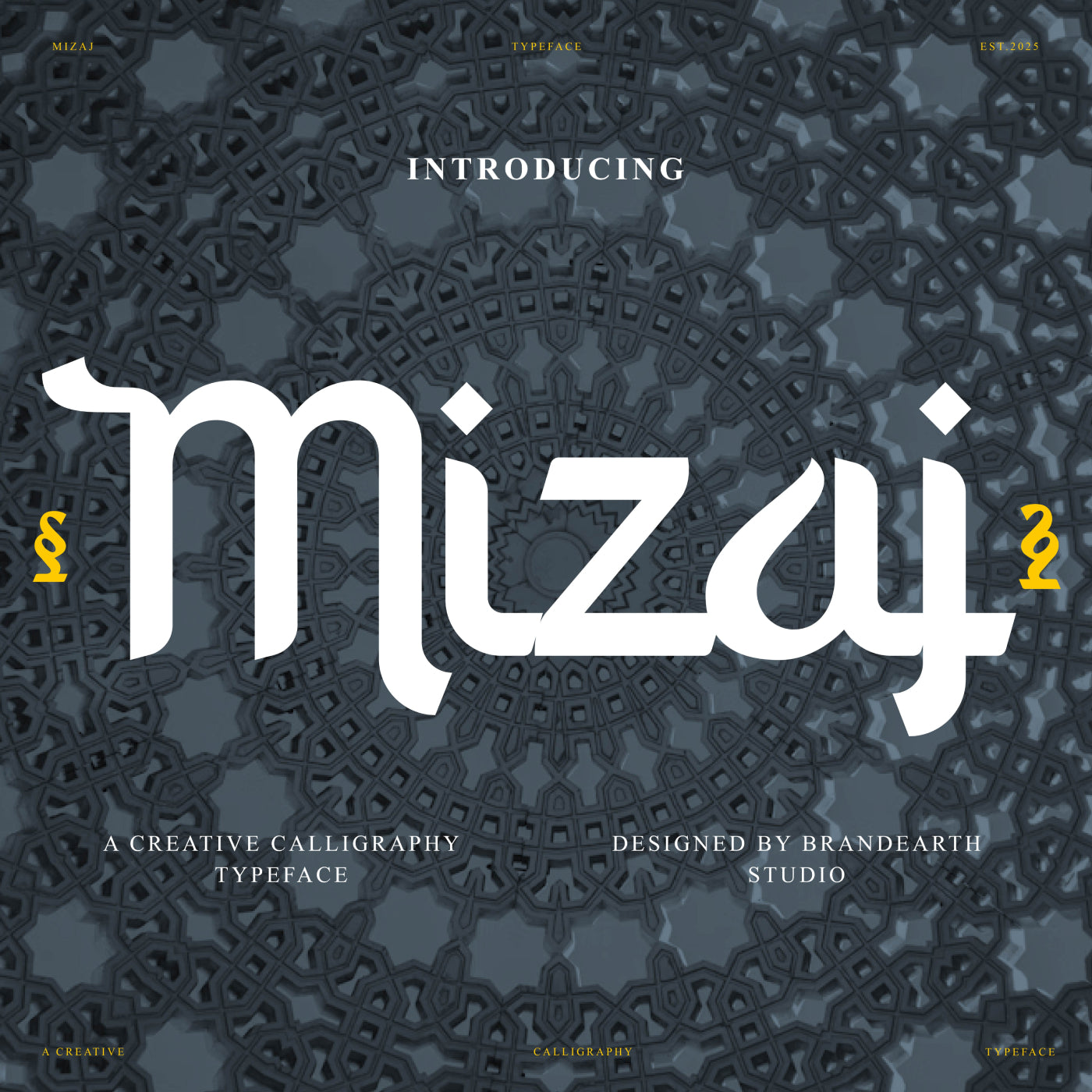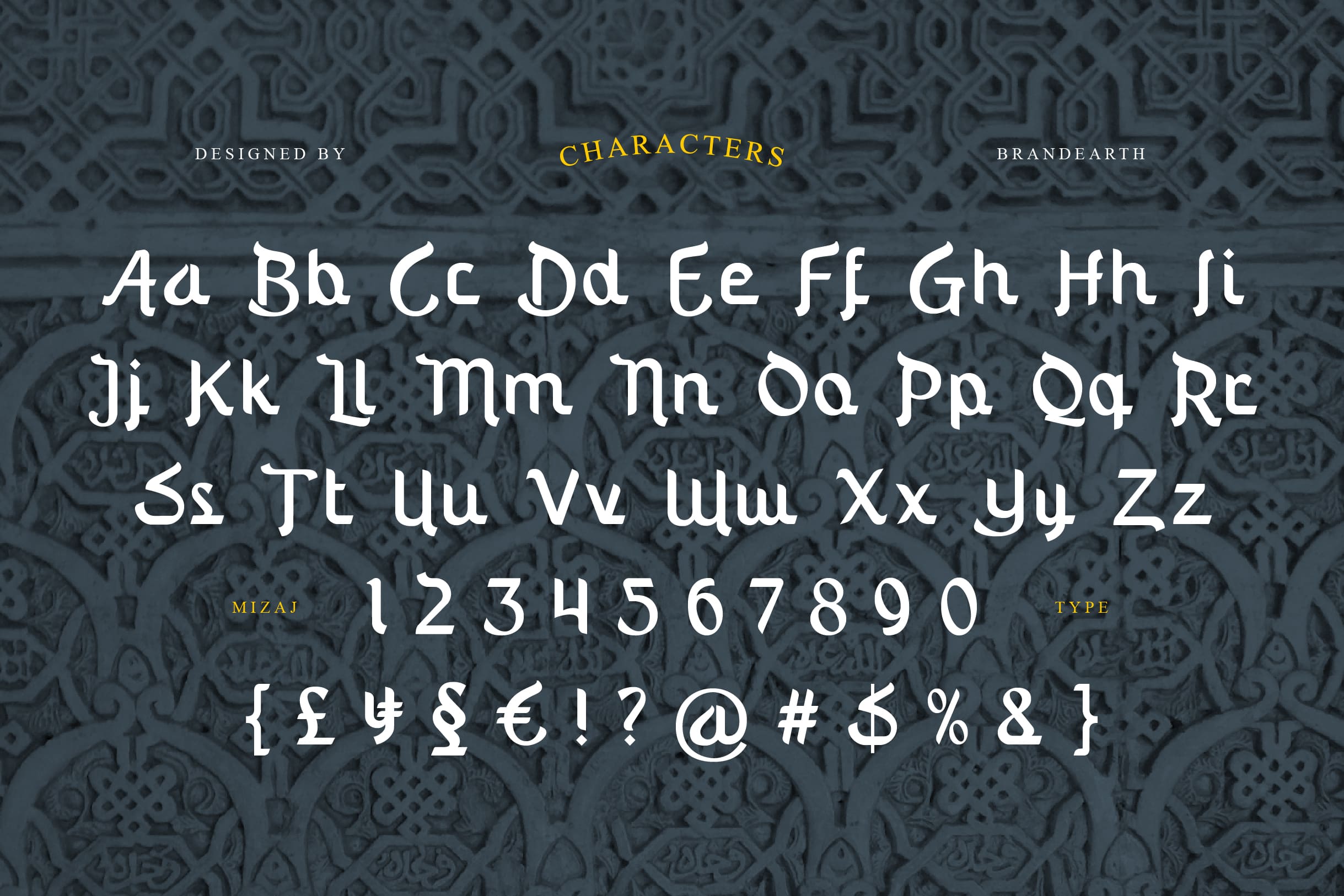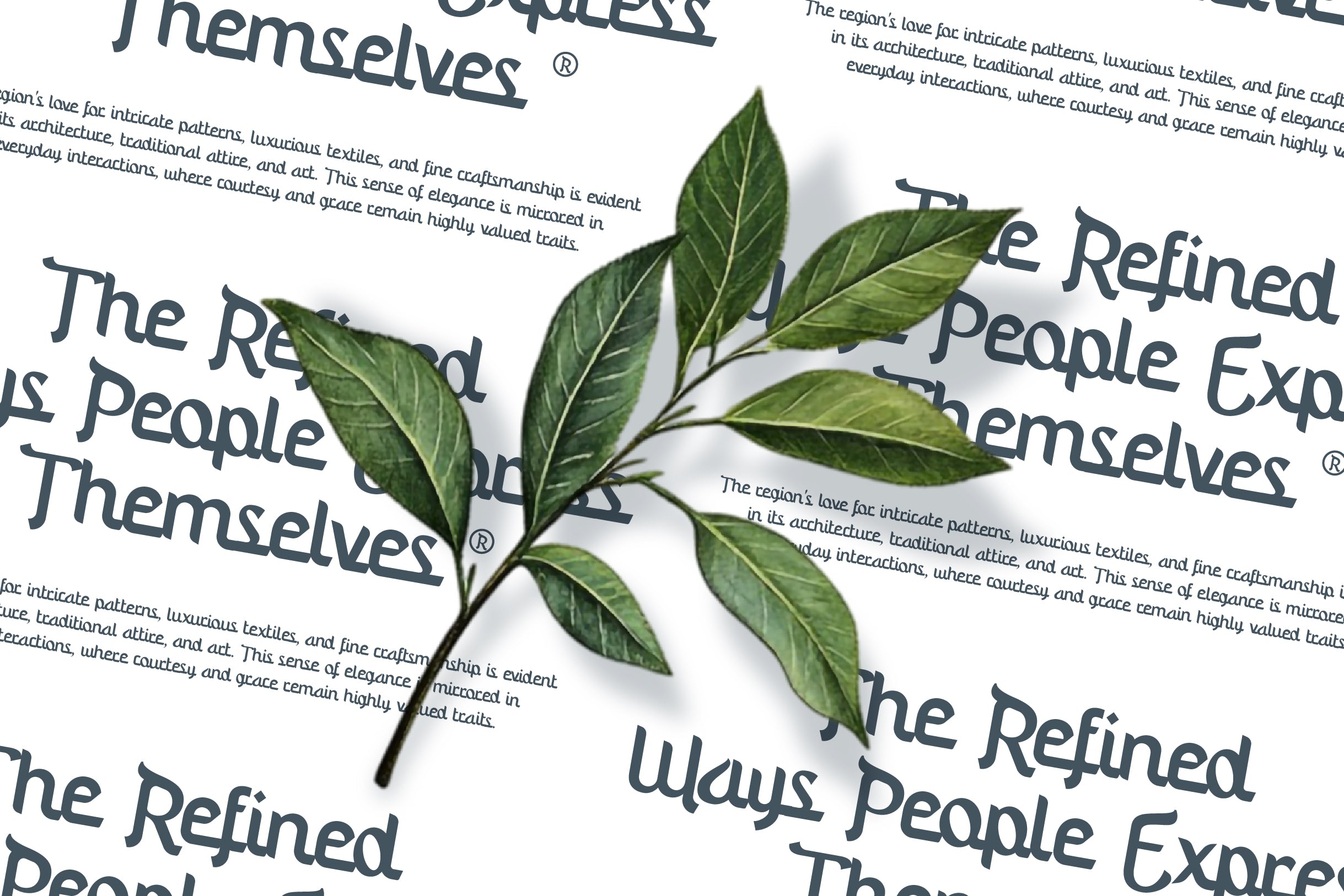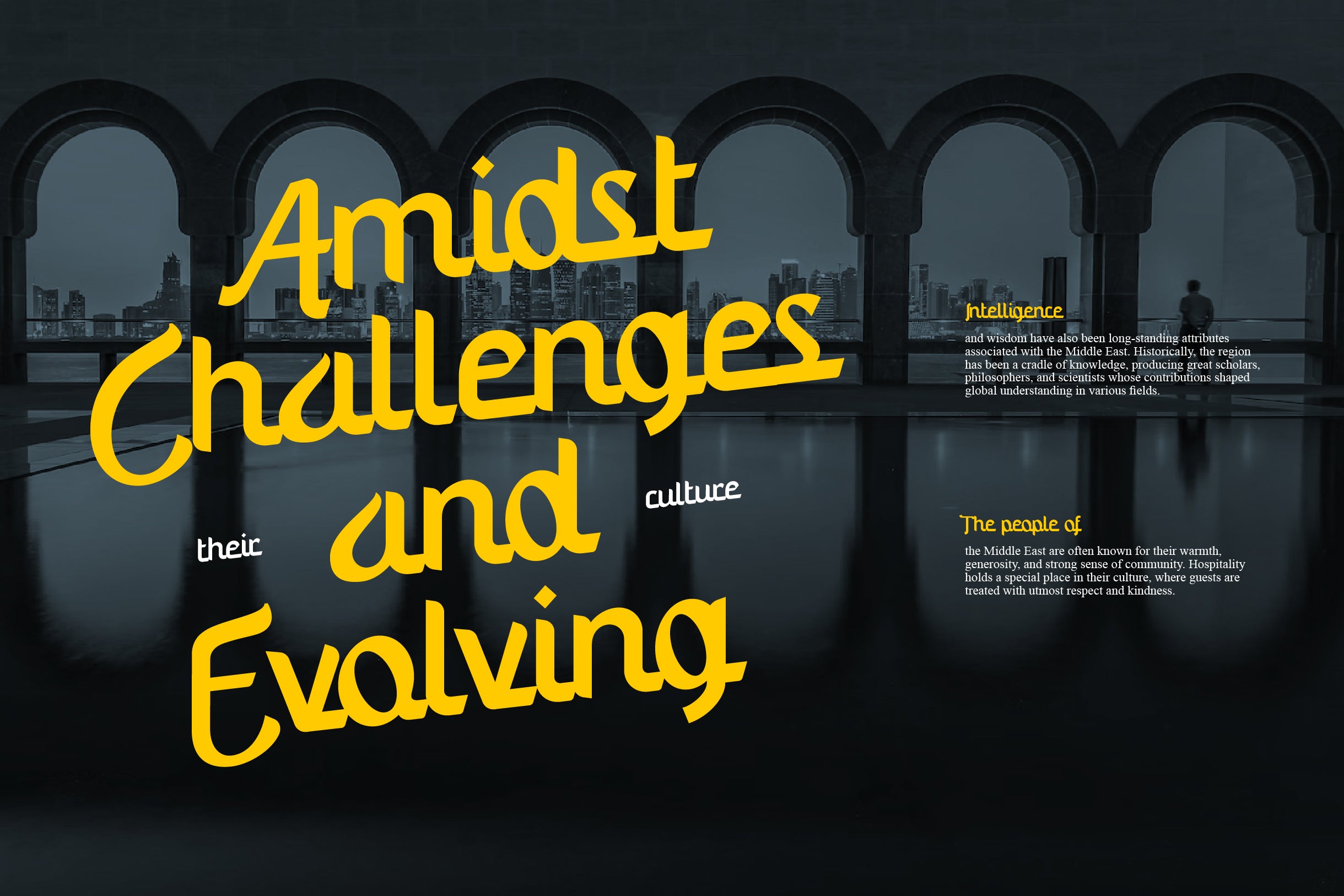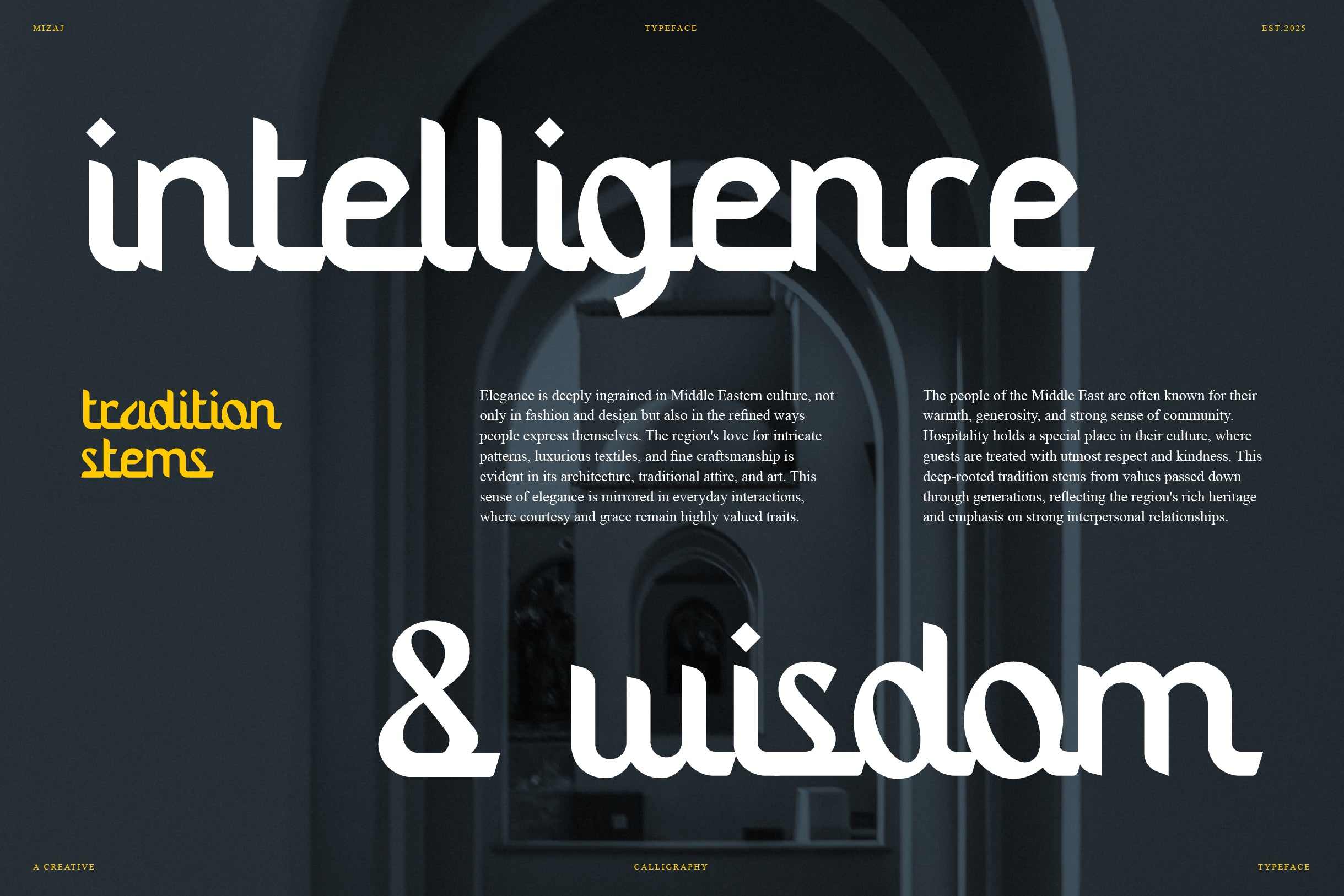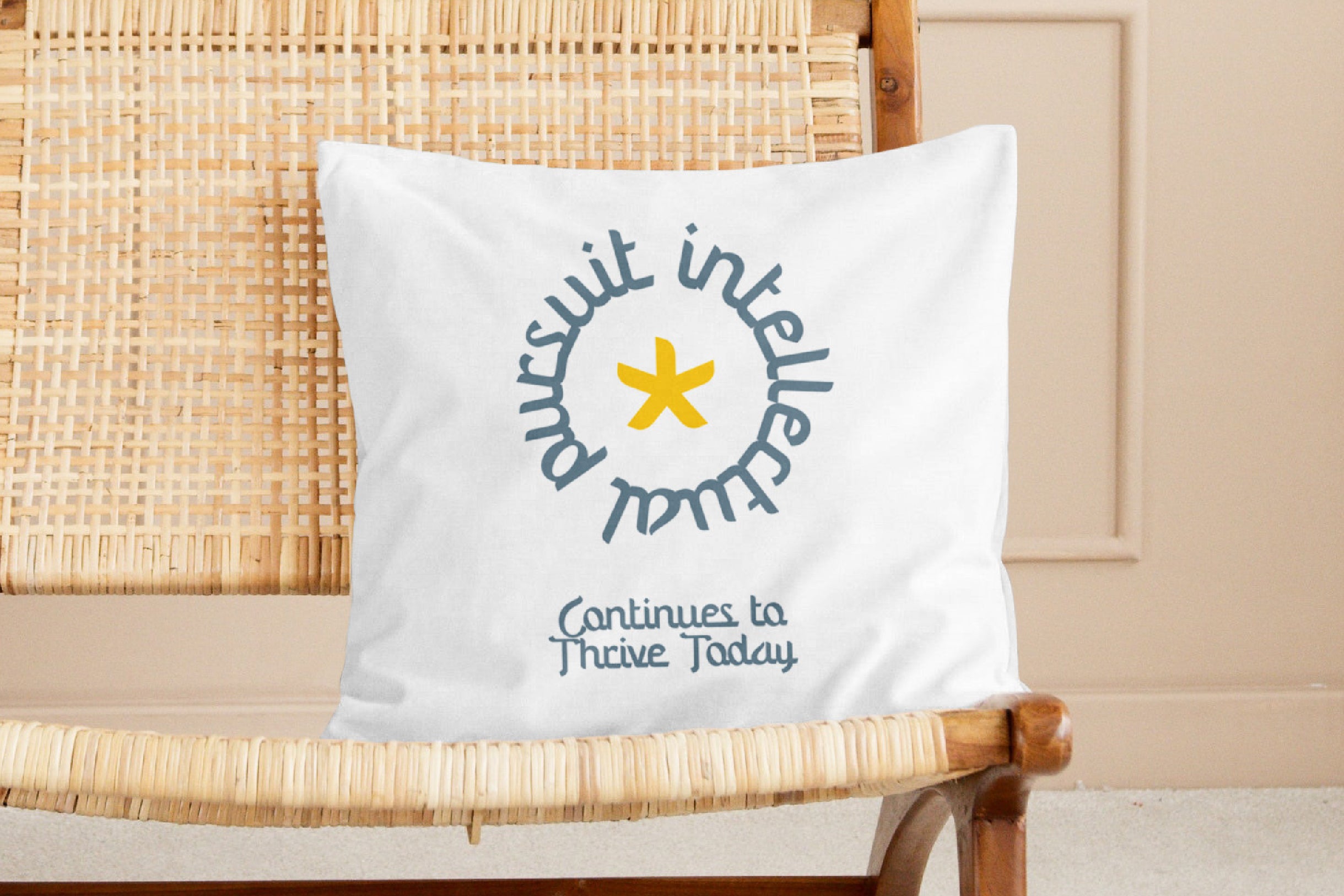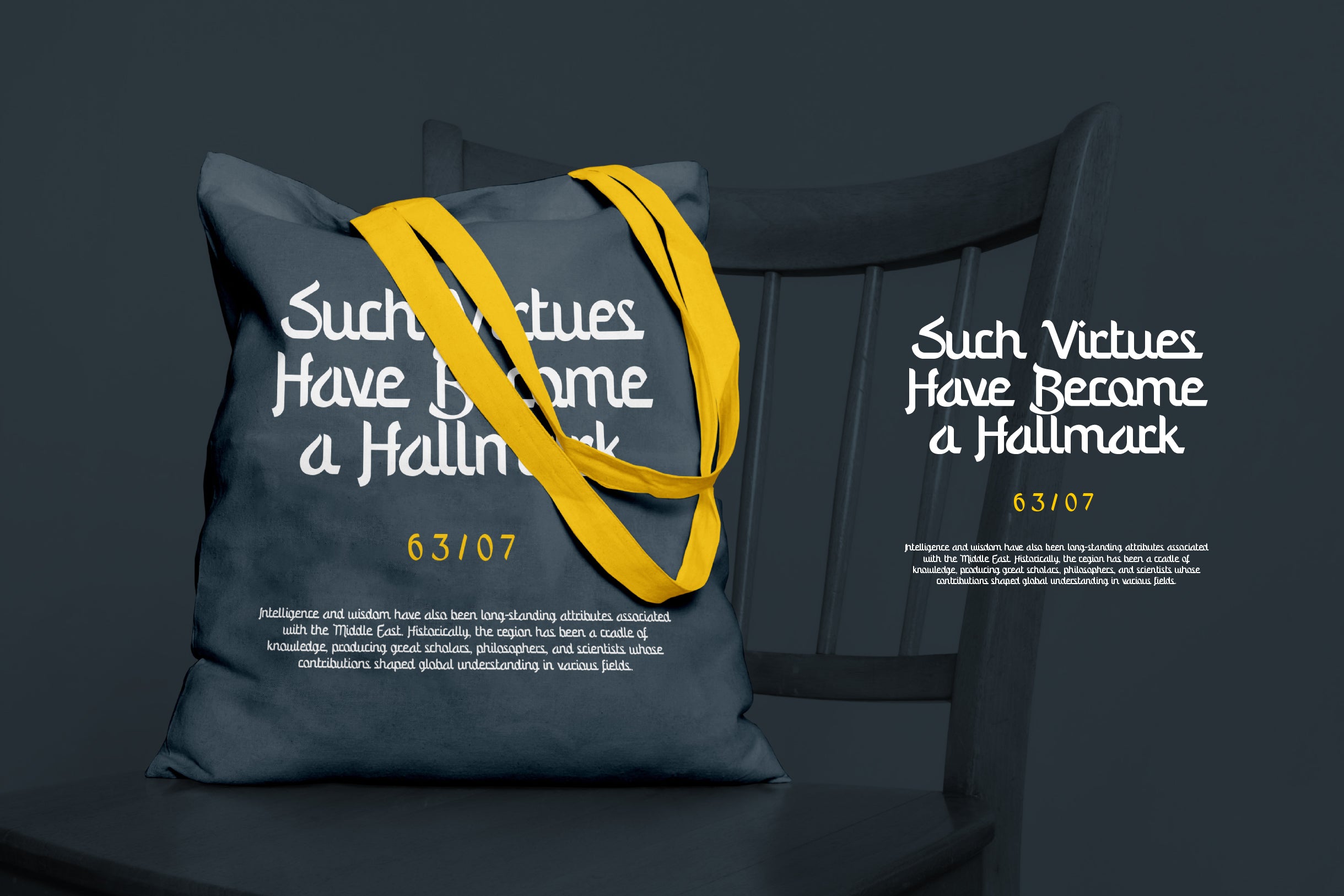
Mizaj Creative Calligraphy Typeface Font
Mizaj is a distinctive creative calligraphy typeface inspired by the flowing rhythm of Arabic-style lettering and ornamental forms. Its characters combine sweeping strokes, curved terminals, elongated shapes, and pointed details to create an expressive silhouette with a strong cultural and decorative presence. The unusual proportions make individual letters visually striking, while the connected-looking forms give words a fluid, handcrafted appearance. The font works best at larger sizes where its curves, flourishes, and distinctive details can remain clearly visible.
Mizaj is a creative calligraphy typeface featuring sweeping strokes, curved terminals, and elongated letterforms inspired by Arabic-style lettering. It includes uppercase and lowercase characters, ligatures, alternates, numerals, and punctuation, and is available in TTF, OTF, and WOFF formats with multilingual support.